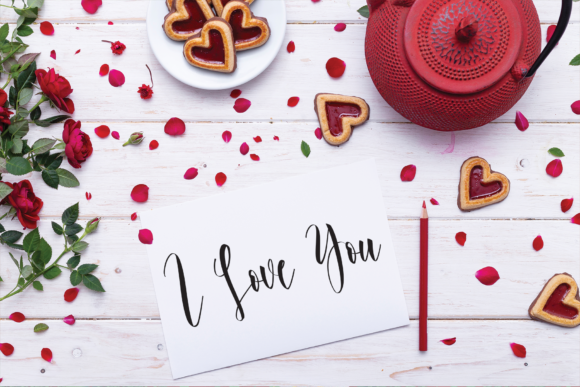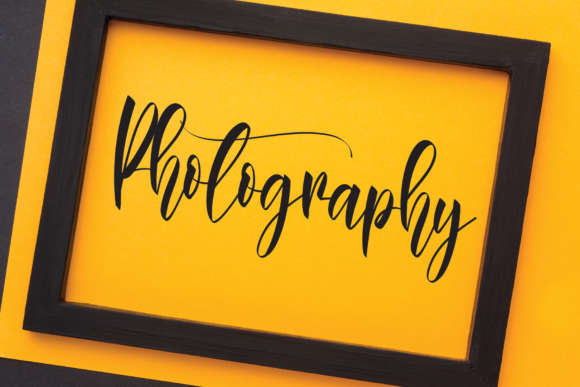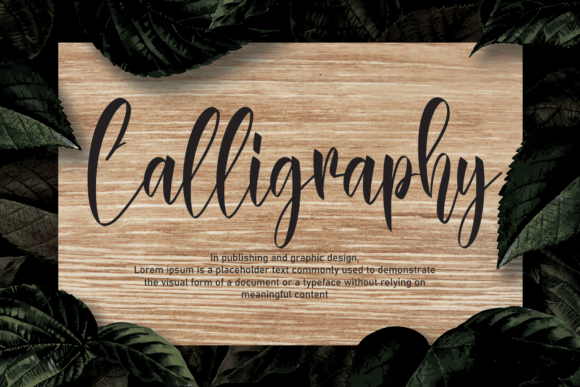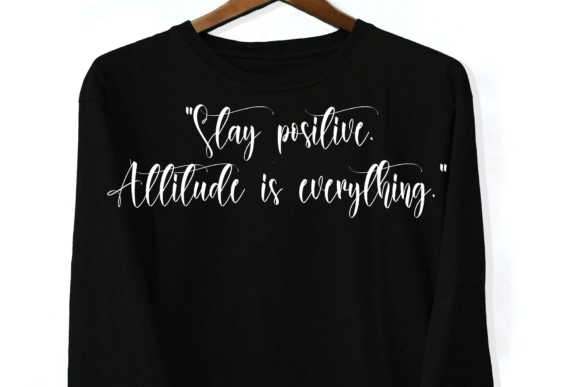
About Christmas Wonderful Font
Christmas Wonderful is a beautiful handwriting and script font suitable for logos, branding projects, kid’s clothes, t-shirt design, product packaging, quotes, and others.